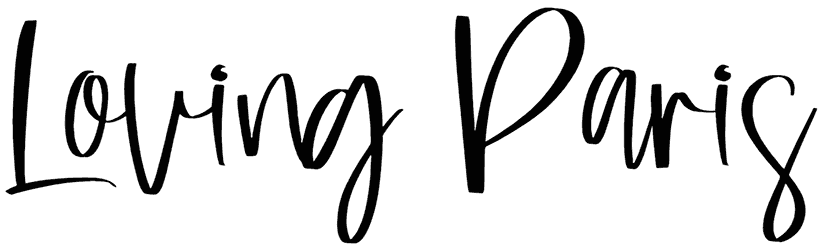
Loving Paris Font
Loving Paris font is one of the most romantic fonts ever introduced you. The connected lines of this hand-letter font show that you can use it in elegant designs. For example, you can design wedding invitation cards, birthday greeting cards, and many luxury and fashion brands.
It’s time to add this floral, handwritten font to your download list. Bear in mind that it’s a bit illegible and slightly handwritten.